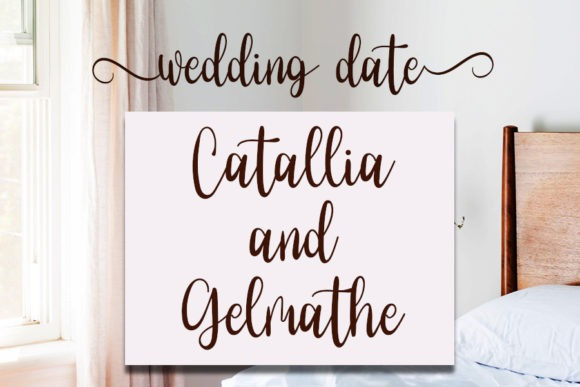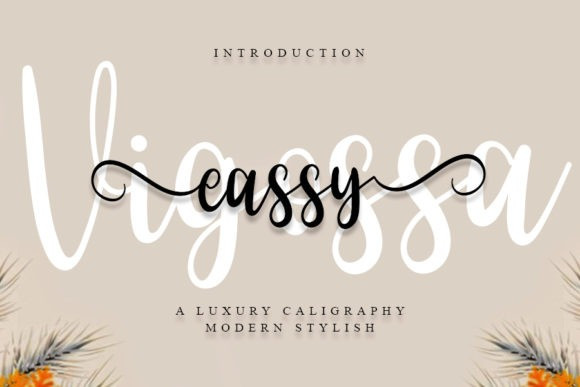
Eassy Vigossa Font
Eassy Vigossa Font is a superb handwritten font. It can be used for various purposes such as logos, wedding invitations, headings, t-shirts and much more. This font is PUA encoded which means you can access all of the glyphs and swashes with ease!